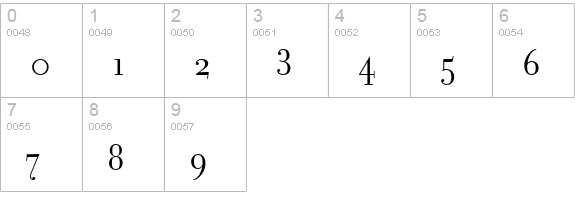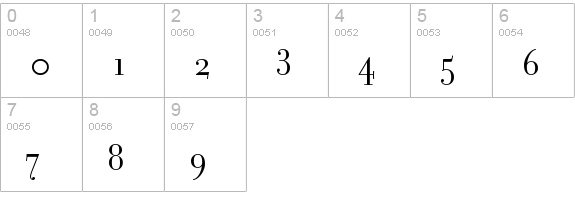
FilosofiaGrand Regular Font Details
FilosofiaGrand Regular is the standard, neutral variant in the FilosofiaGrand typeface family \xE2\x80\x94 well suited to general body text, paragraphs, and standard typographic work.
FilosofiaGrand Regular font is a timeless and elegant typeface that exudes sophistication and style. Its classic design and clean lines make it perfect for a wide range of projects, from branding to editorial design. With its balanced letterforms and graceful curves, FilosofiaGrand Regular font adds a touch of refinement to any layout. What makes FilosofiaGrand Regular font even more appealing is the fact that it is available for free download at FontsMarket.com. This means you can easily access this beautiful font without having to spend a dime. Whether you're a professional designer looking for a versatile typeface or a hobbyist looking to enhance your creative projects, FilosofiaGrand Regular font is a fantastic choice that won't cost you anything. Download it now and elevate your designs with this exquisite font.